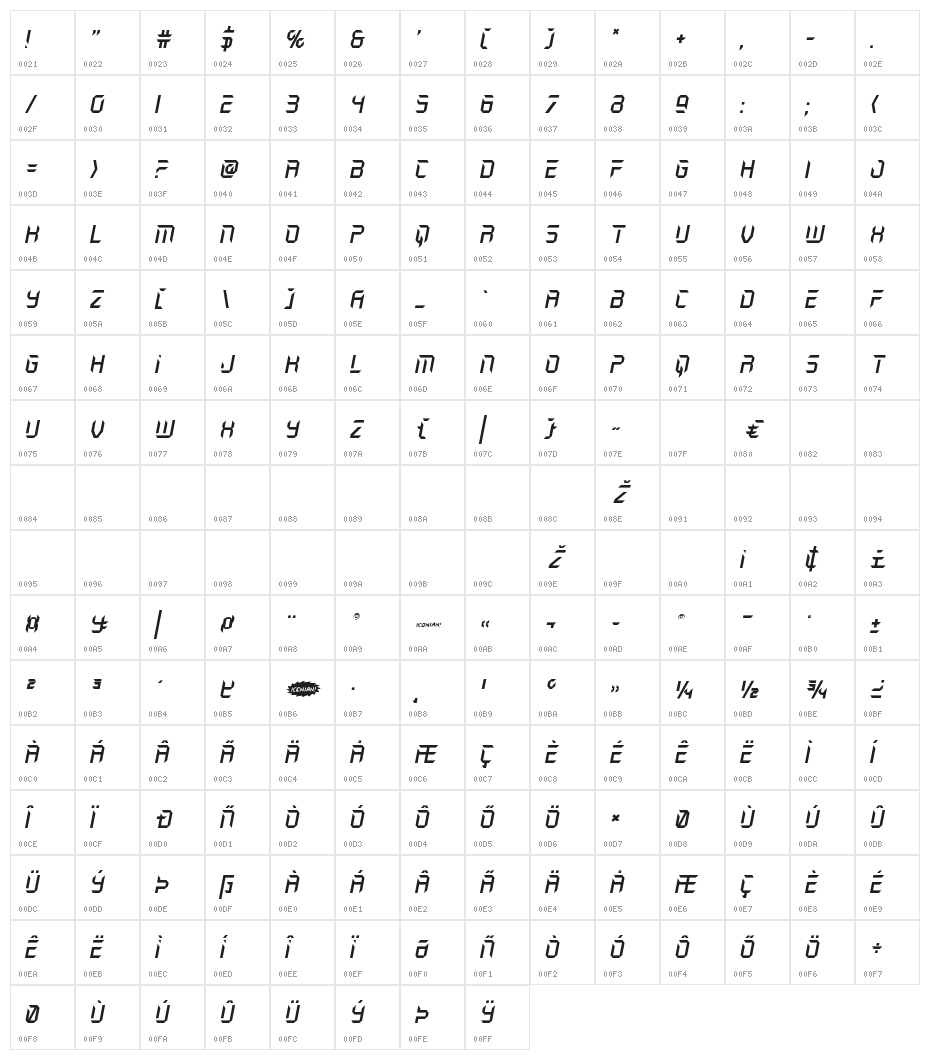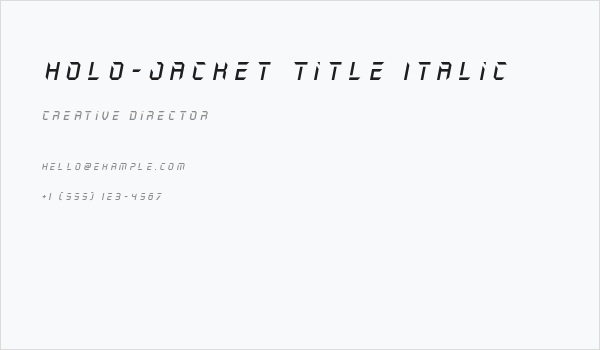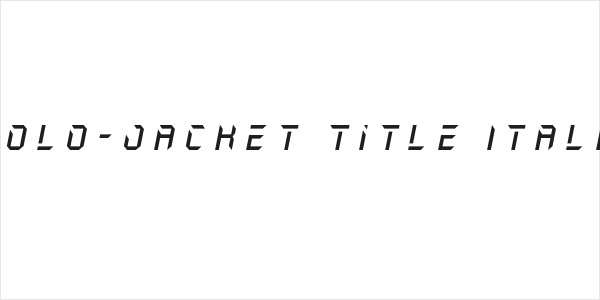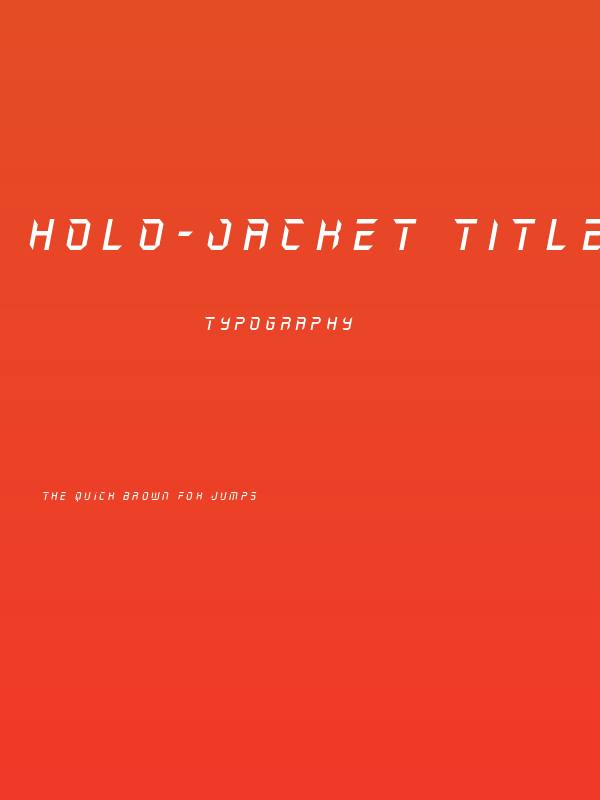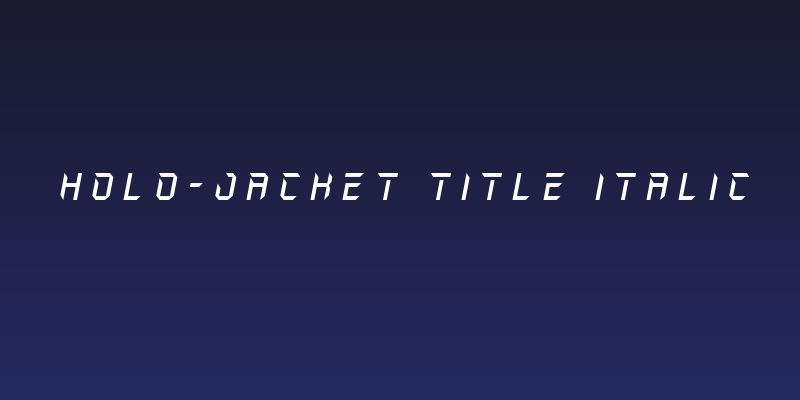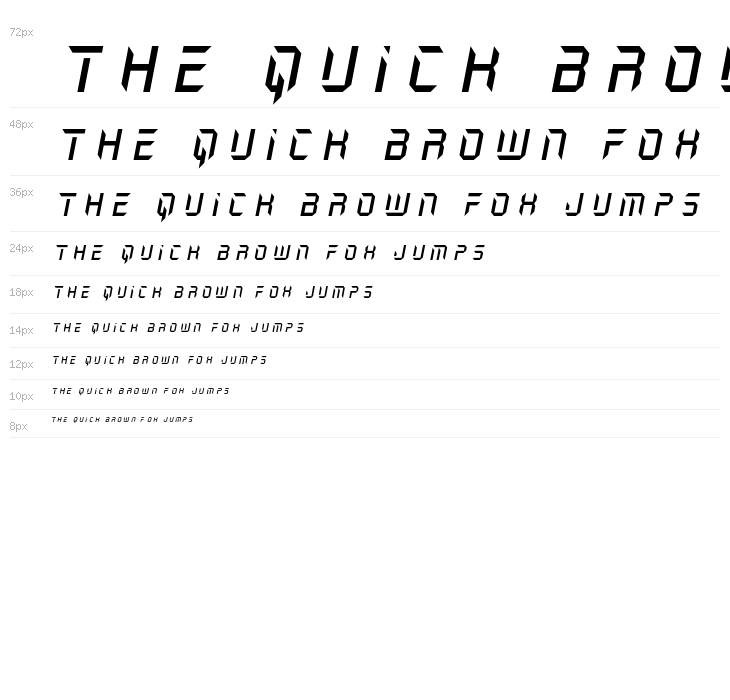
Holo-Jacket Title Italic Font
Holo-Jacket Title Italic Description
This font features a futuristic and angular design, characterized by sharp edges and a distinct italic slant. The geometric shapes create a sense of motion and modernity, making it ideal for projects that require a cutting-edge aesthetic. The uppercase and lowercase letters maintain a consistent style, with numbers and special characters following the same angular theme. The overall appearance is sleek and dynamic, suitable for technology-related designs or branding that aims to convey innovation and forward-thinking.
Proposed ProjectsIdeal for technology branding, sci-fi movie posters, video game titles, and modern digital interfaces.